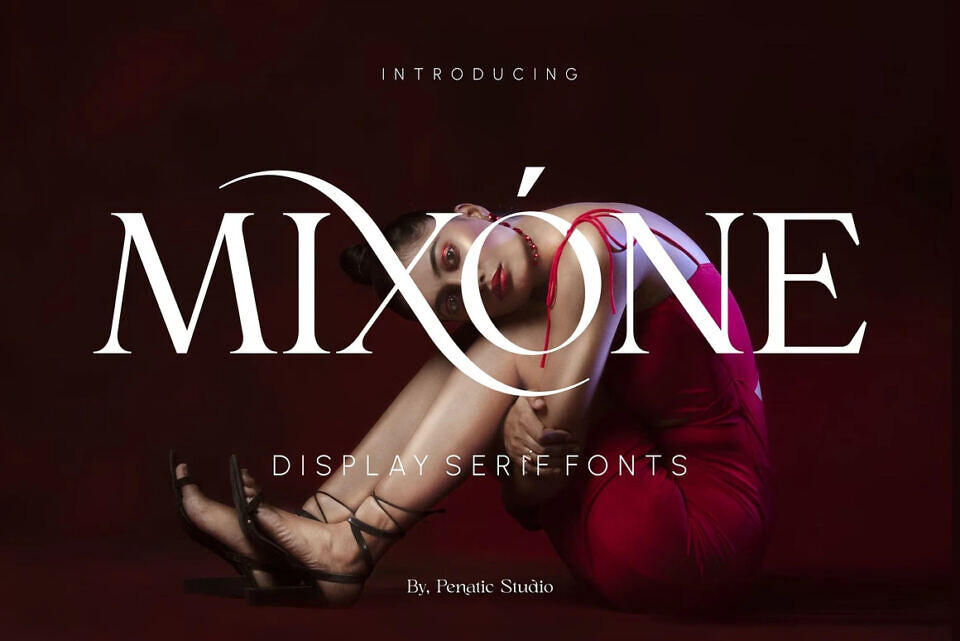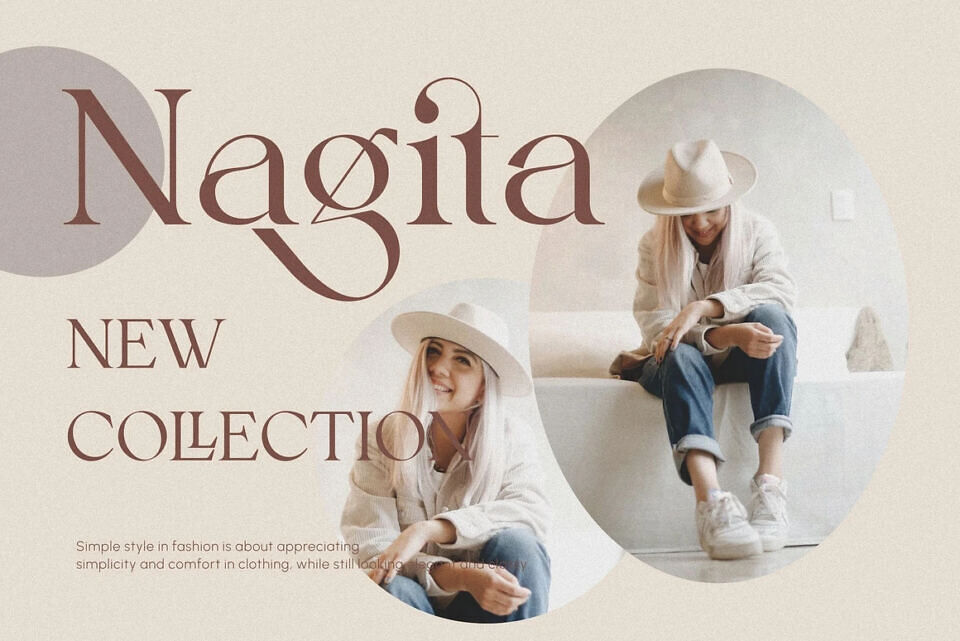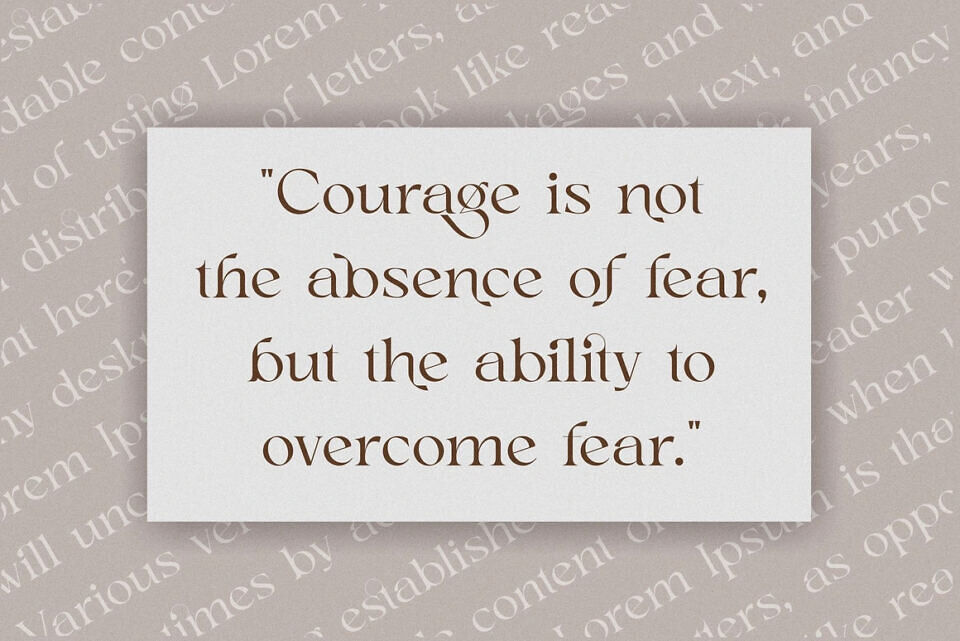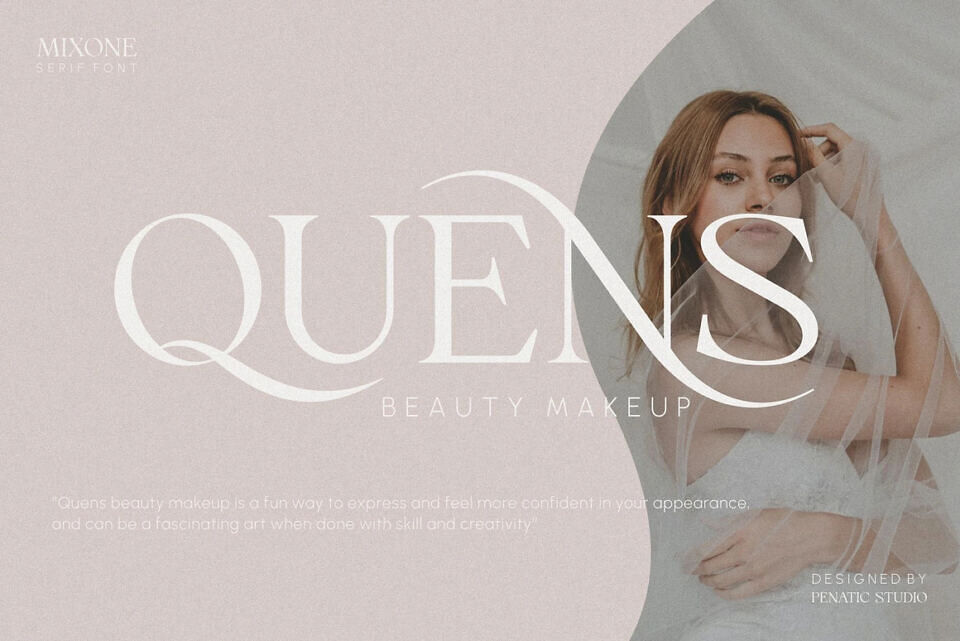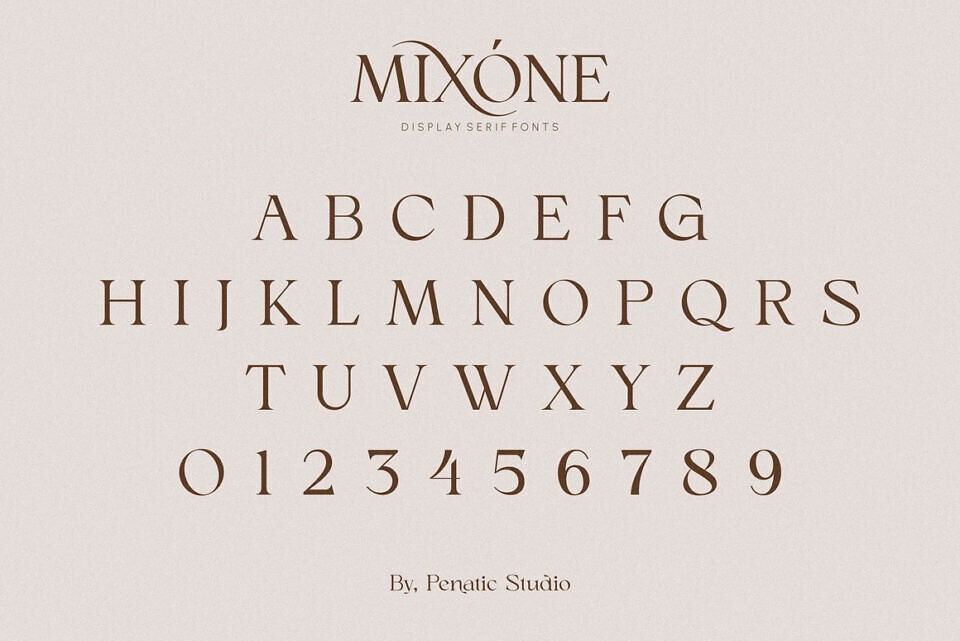
Mixone offers a unique and modern font style that can elevate any design. With its versatile range of styles, from classic to bold, it adds a fresh touch to projects, websites, and graphics.
Using this font allows you to convey your message or brand identity in a distinctive and eye-catching way, making it perfect for updating your look and leaving a lasting impression.